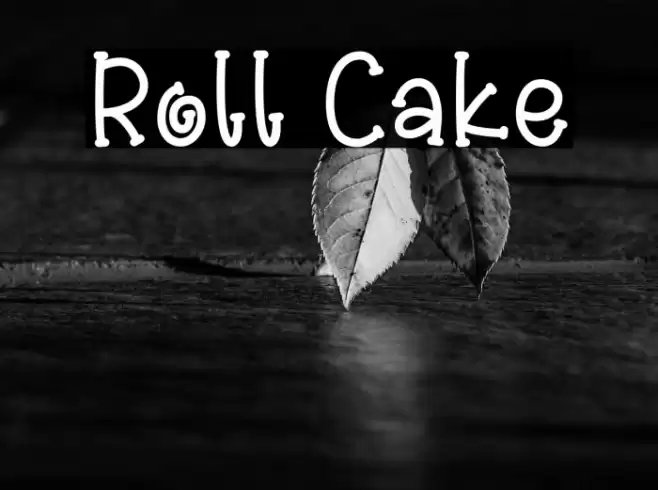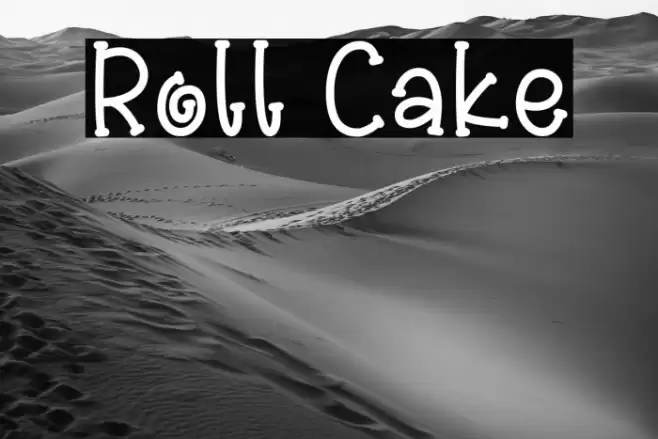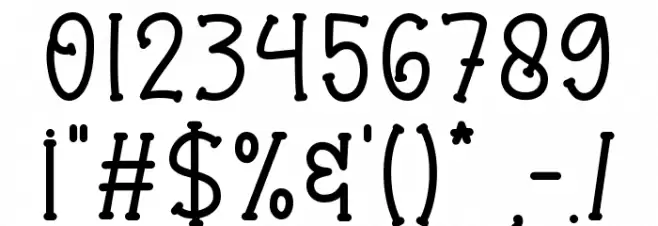
Roll Cake Font
Roll Cake Description
This playful and whimsical font features rounded, slightly irregular characters that give it a hand-drawn appearance. The letters have a consistent stroke width, contributing to a uniform look while maintaining a casual and friendly vibe. The uppercase and lowercase letters are distinct, with the lowercase letters having a slightly more playful and exaggerated style. Numbers and special characters are designed to match the overall aesthetic, ensuring a cohesive look across all text. This font is ideal for projects that require a fun and approachable feel.
A playful, hand-drawn style font with rounded, consistent strokes from Uncategorized fonts.
- Proposed Projects: Children's books, greeting cards, playful branding, and casual invitations.
- Overall Style: Playful
- Use Case: Headlines, Logos, Informal Text